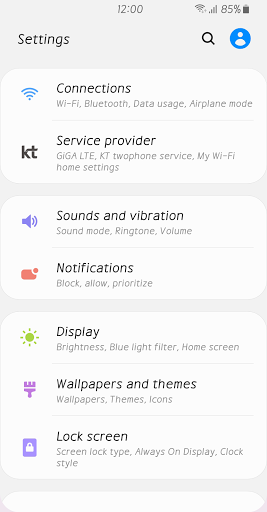
CatBlue™ Latin Flipfont
Flipfont™ changes the user interface font on your phone.
CatBlue™ Latin Flipfont™ Latin Flipfont
CatBlue™ Latin Flipfont™ Latin Flipfont is a Sans italic font that is easy to read with blue coolness.